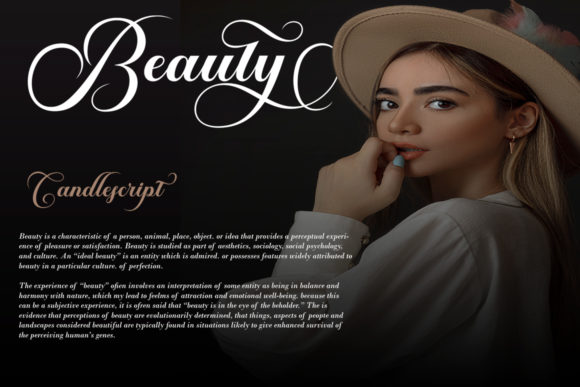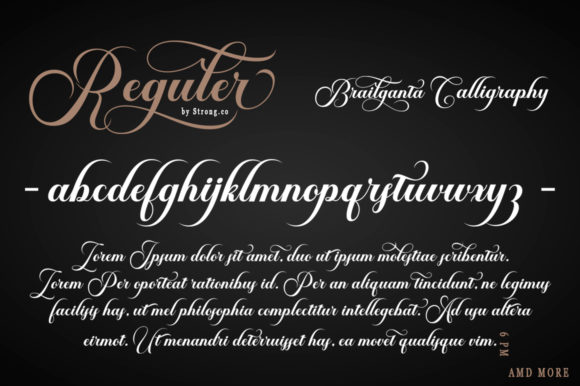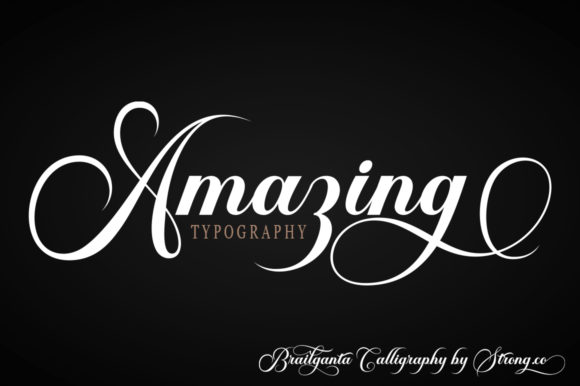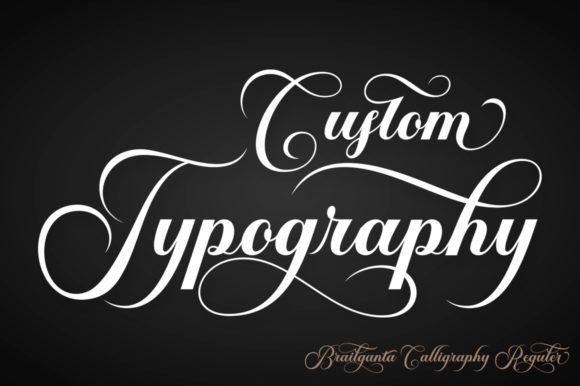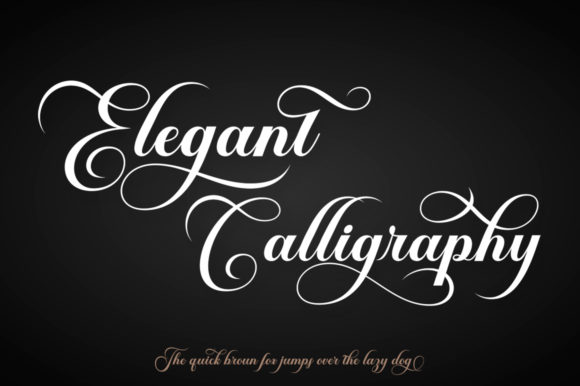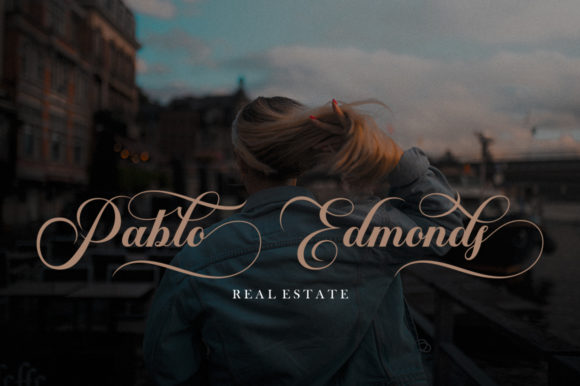
The Perfect Brush Stroke: Unlocking the Beauty of Brailganta Script Font
Have you ever been stuck on a design project, unable to find the perfect font to capture the essence of your vision? You know that moment when you finally stumble upon that one font that makes everything click? That’s exactly what happened to us when we discovered the Brailganta Script Font.
This beautiful script font is designed to add a touch of elegance and sophistication to any project. With its PUA encoding, you’ll have access to a wide range of glyphs and swashes, allowing you to customize your designs with ease. Whether you’re working on a wedding invitation, a branding project, or a blog post, the Brailganta Script Font is the perfect addition to take your designs to the next level.
As a designer, you know how valuable it is to have the right tools at your disposal. That’s why we’re excited to share the Brailganta Script Font with you – it’s a game-changer for any project that requires a touch of style and sophistication.
Key Features of Brailganta Script Font
- Font Family: Brailganta Script
- Unique Characteristics: Handwritten, cursive script font with a touch of elegance and sophistication
Brailganta Script Font Review
Overall, I’m quite impressed with the Brailganta Script Font. It’s a beautiful, elegant script font that adds a touch of sophistication to any design project. ✨ The flowing connections and subtle flourishes make it perfect for creating a sense of luxury and refinement.
Here are some of the things I like about this font:
- ✨ Elegant and refined, perfect for high-end designs
- ✨ Smooth connections between letters, making it easy to read
- ✨ A wide range of weights and styles to choose from, offering plenty of flexibility
- ✨ Works well in both digital and print applications
That being said, there are a few limitations to consider:
- ⚠️ May not be the best choice for body text, as it can be difficult to read at small sizes
- ⚠️ Limited support for languages other than English
- ⚠️ May not be suitable for use in very formal or conservative settings
Overall, I would highly recommend the Brailganta Script Font for any design project where you want to add a touch of elegance and sophistication. Just be sure to use it judiciously and in the right context.
Tips for Getting the Most Out of Brailganta Script Font
Use the Brailganta Script Font for creative headings and titles.
Pair the font with a clean and simple font for body text.
Use the font to add a touch of elegance and sophistication to your designs.
Business cards and marketing materials.
Book covers and publishing materials.
Event invitations and signage.
Alternatives to Brailganta Script Font for Designers
Pacifico is a modern script font that is perfect for creating elegant and sophisticated designs. It is ideal for use in branding, packaging, and advertising materials. When to use: Pacifico is suitable for high-end brands and designs that require a touch of luxury.
Comparison: Pacifico has a more refined and polished look compared to Brailganta Script Font, making it a great choice for designers who want to create a more premium look.
Great Vibes is a fun and energetic script font that is perfect for creating playful and youthful designs. It is ideal for use in social media graphics, blog posts, and other digital materials. When to use: Great Vibes is suitable for brands and designs that want to convey a sense of fun and playfulness.
Comparison: Great Vibes has a more casual and relaxed look compared to Brailganta Script Font, making it a great choice for designers who want to create a more laid-back atmosphere.
Carolyna Pro is a elegant and sophisticated script font that is perfect for creating high-end designs. It is ideal for use in branding, packaging, and advertising materials. When to use: Carolyna Pro is suitable for luxury brands and designs that require a touch of sophistication.
Q: Does the Brailganta Script Font support languages other than English?
The Brailganta Script Font supports a wide range of languages, including Latin-based languages, Cyrillic, and Greek. However, support for non-Latin scripts may be limited due to the font’s design focus on script and calligraphy styles. For more information on language support, please consult the font’s documentation or contact the font creator.